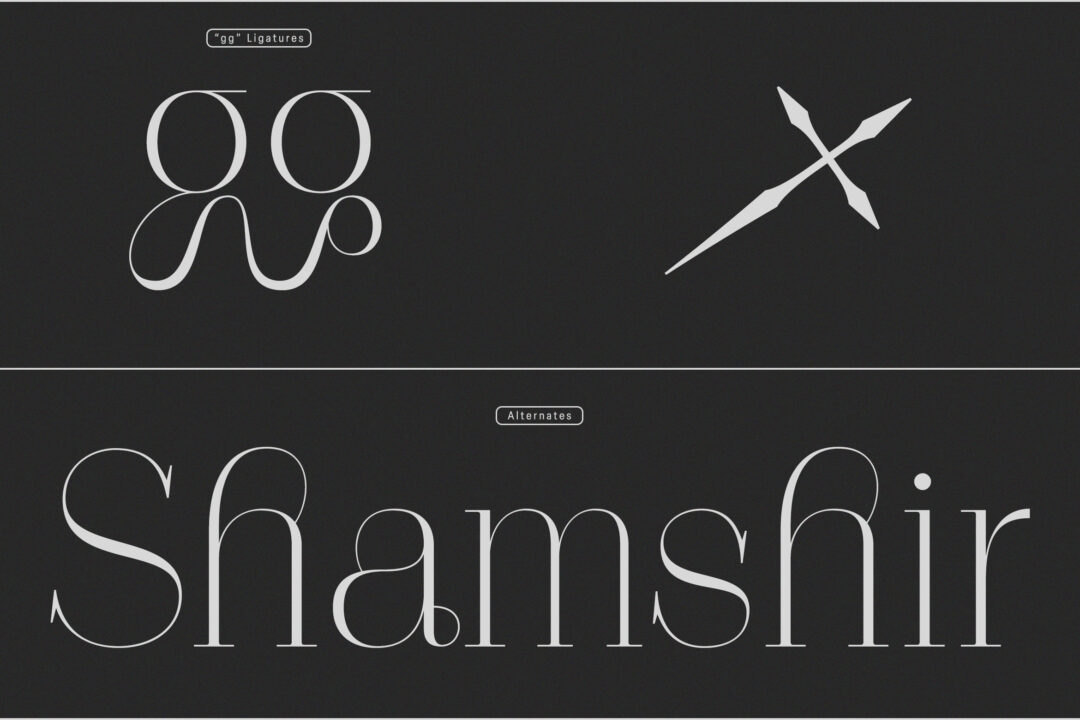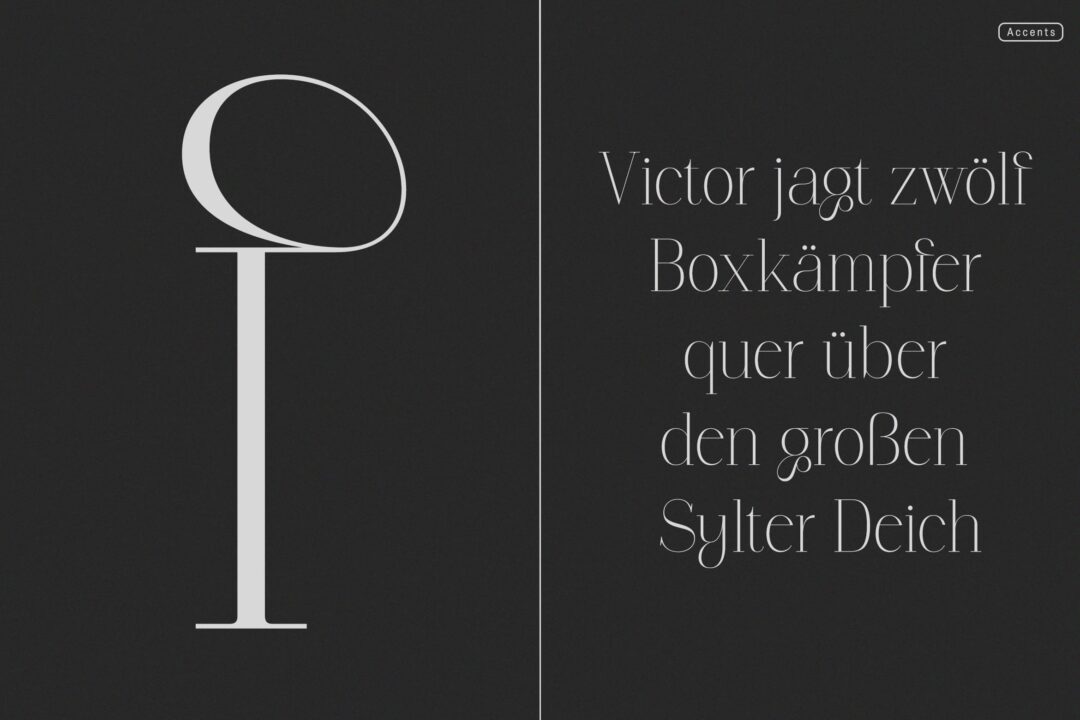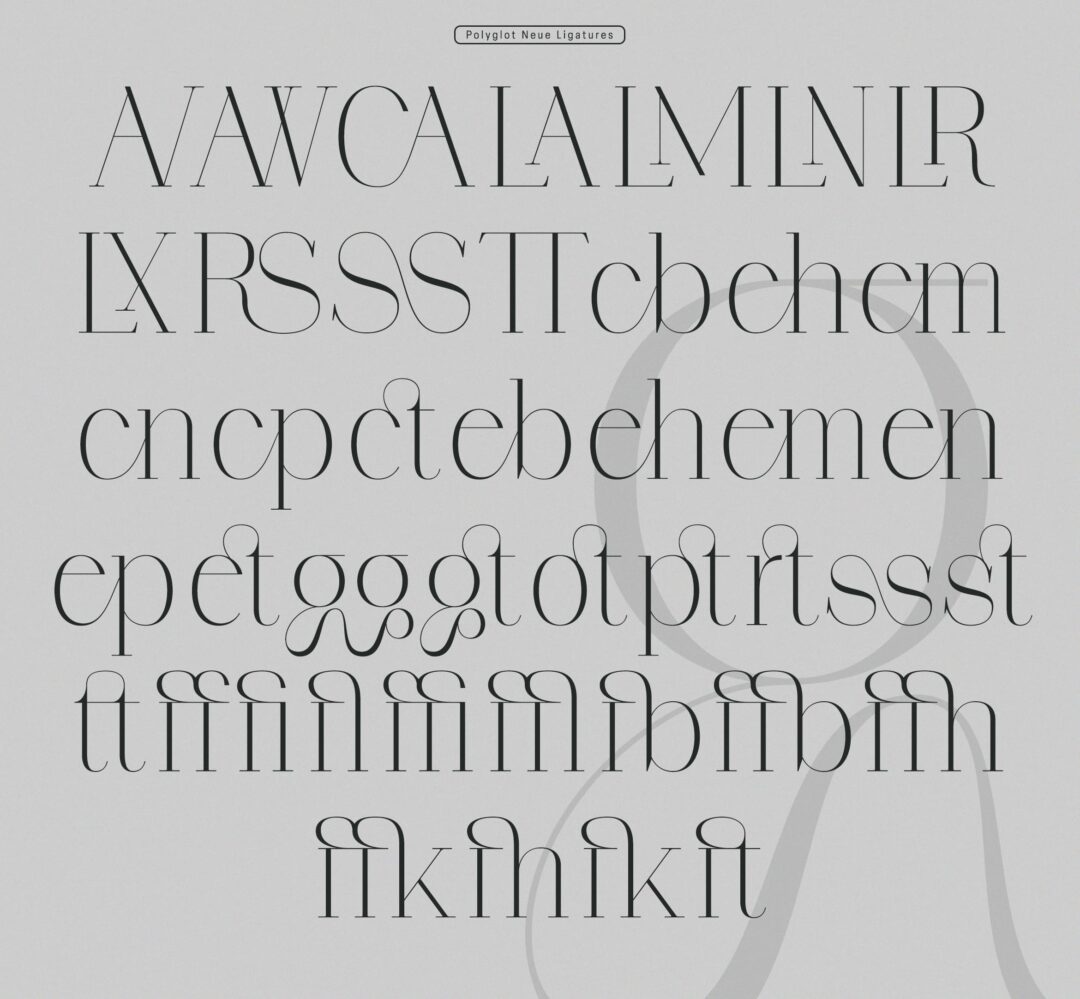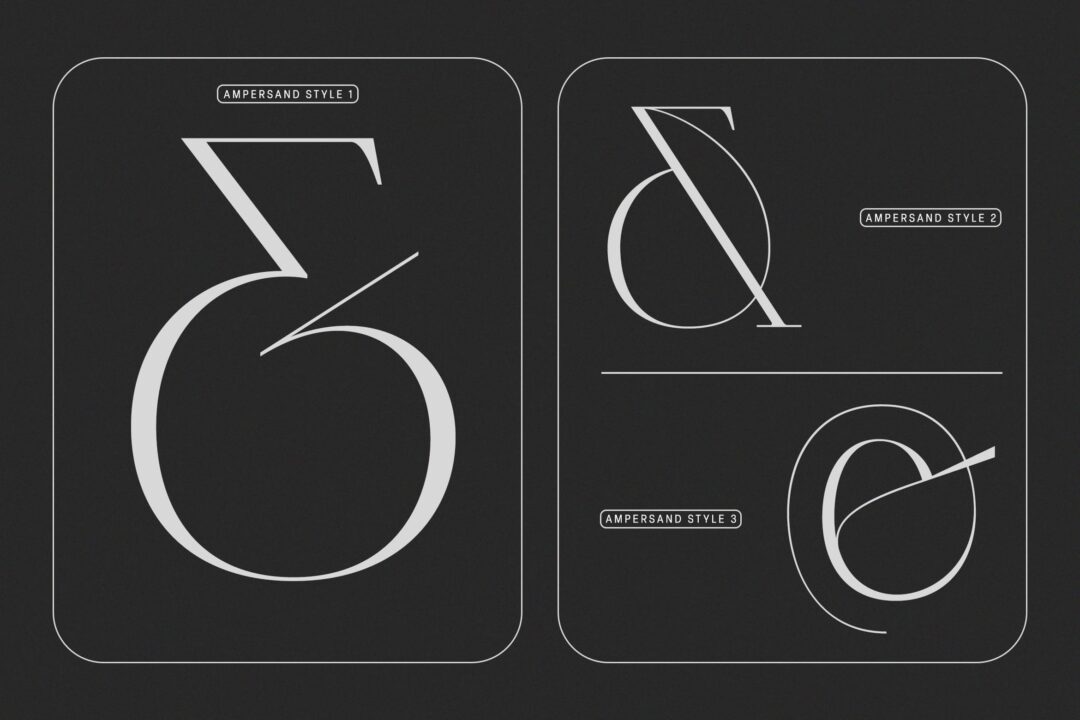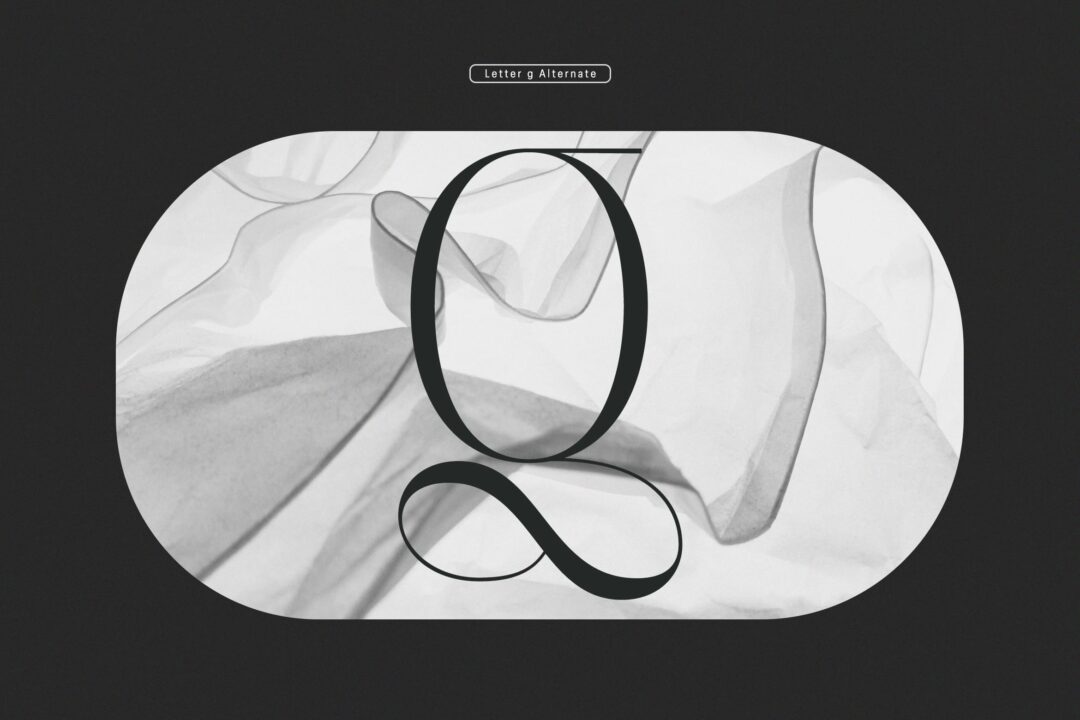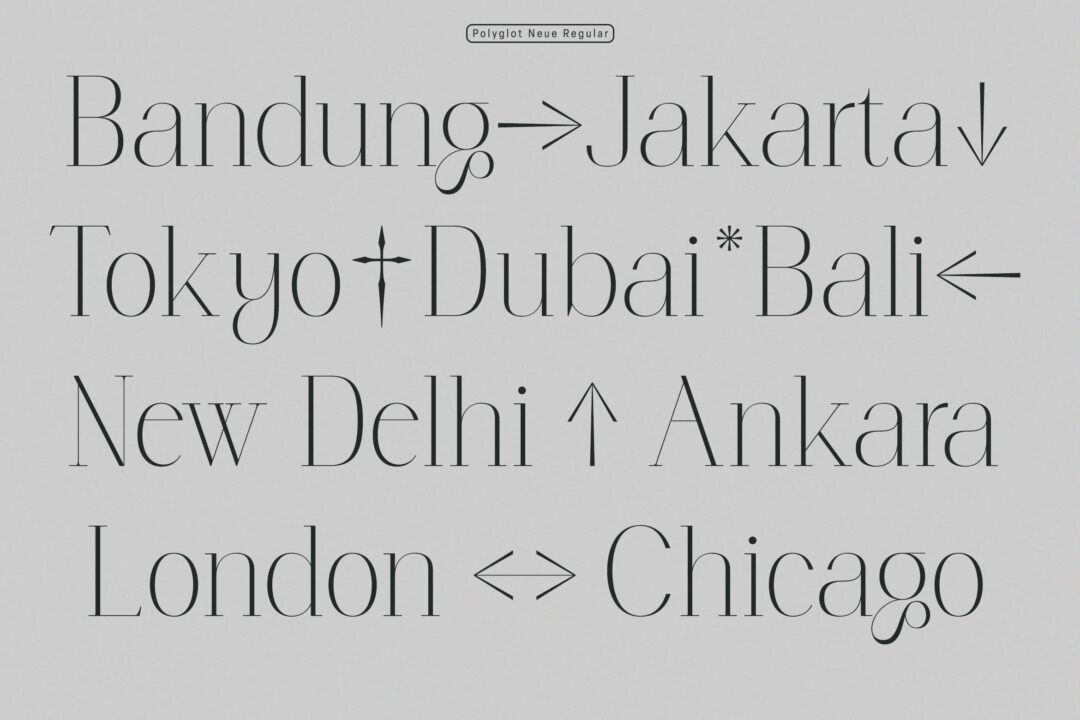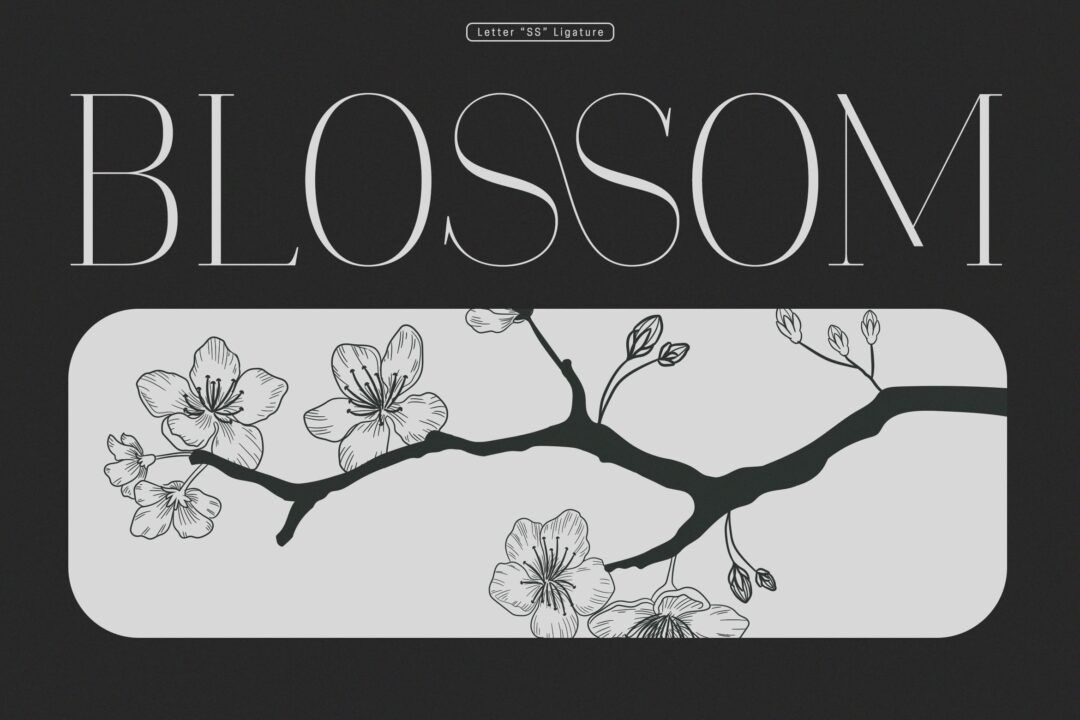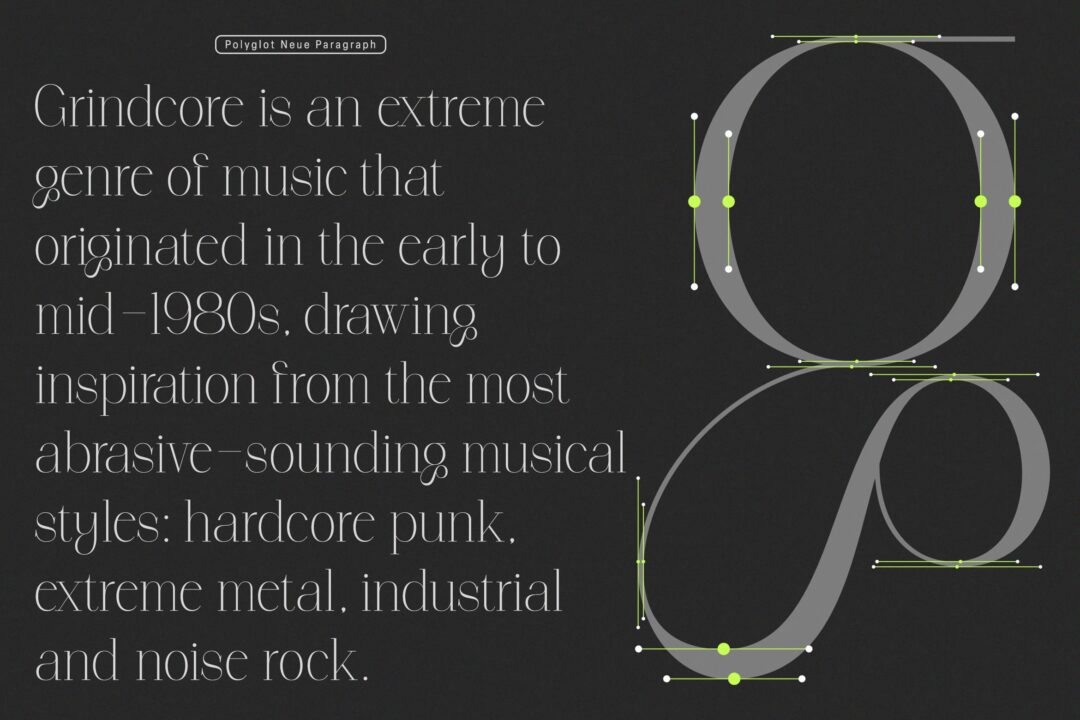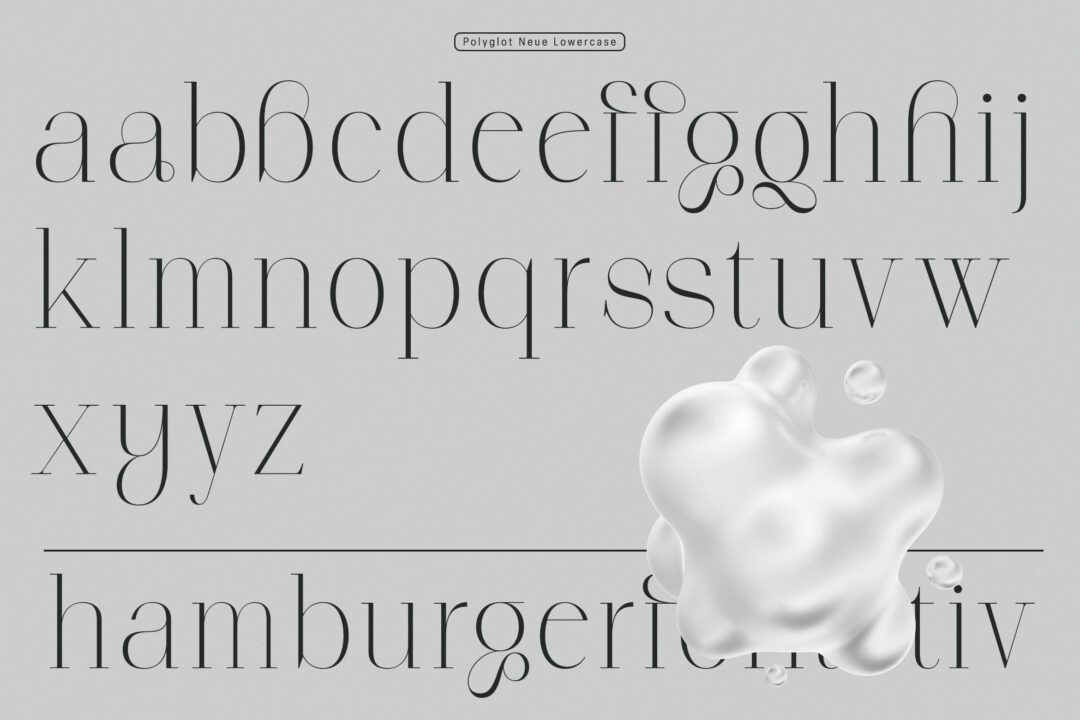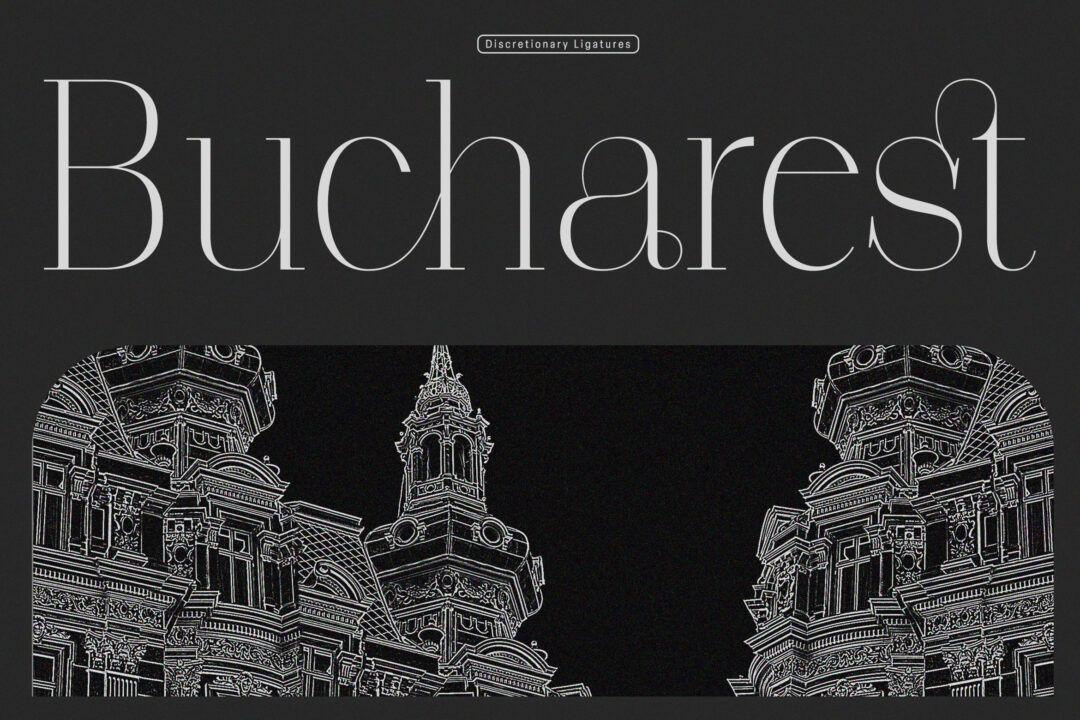
Introducing Polyglot Typeface. The unique and fashionable font with tons of ligatures uppercase and lowercase. and supports multilingual languages. the straight lines combined with a slight curve make polyglot look minimalist and elegant.
Create unique & elegant logotype, use it as an elegant for your next project headlines, logotype designs,
posters or t-shirts, business cards.
- Ton of glyphs
- Ligature & Alternate
- Fonts include multilingual support for; Afrikaans, Albanian, Czech, Danish, Dutch, English, Estonian, Finnish, French, German, Hungarian, Italian, Latvian, Lithuanian, Norwegian, Polish, Portuguese, Slovak, Slovenian, Spanish, Swedish.